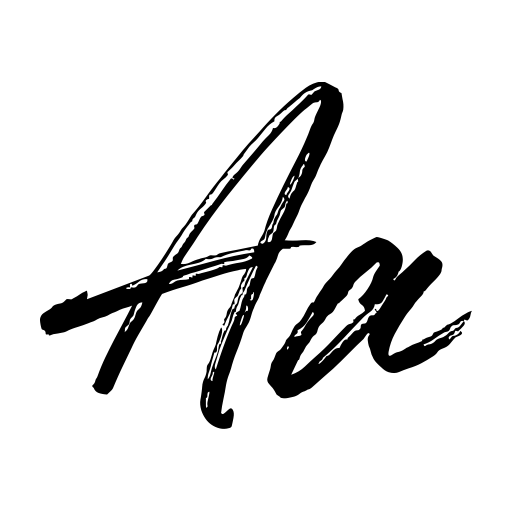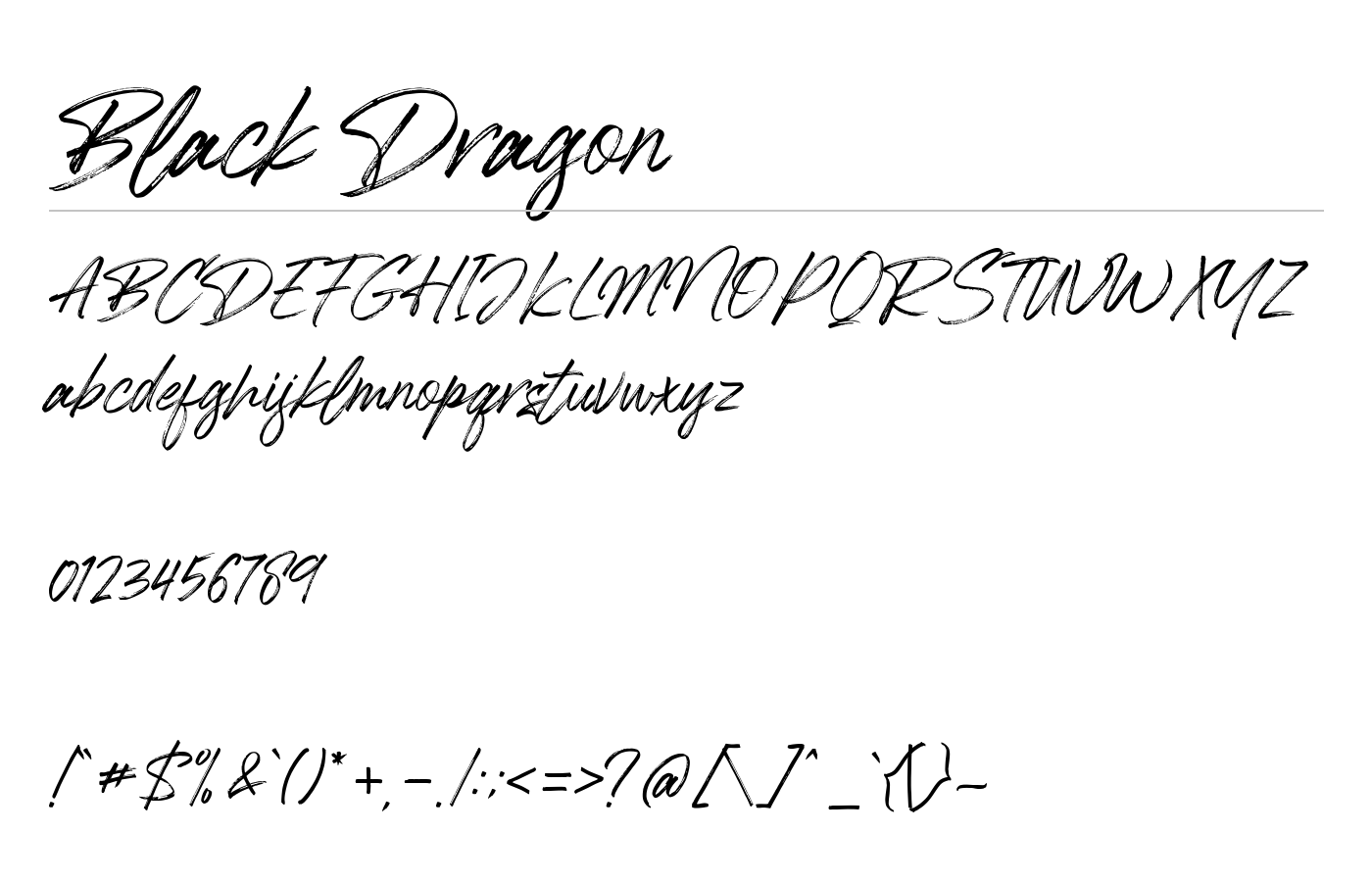
Black Dragon is an expressive script font with a dynamic, hand-drawn feel, featuring slightly rough, textured strokes that add character and energy. Its tall, flowing letterforms with a casual elegance make it ideal for creative branding, invitations, and headline use where a bold yet personal touch is desired. This font works well to convey a sense of artistic flair and individuality in fashion, lifestyle, or trendy editorial designs.
Black Dragon Font